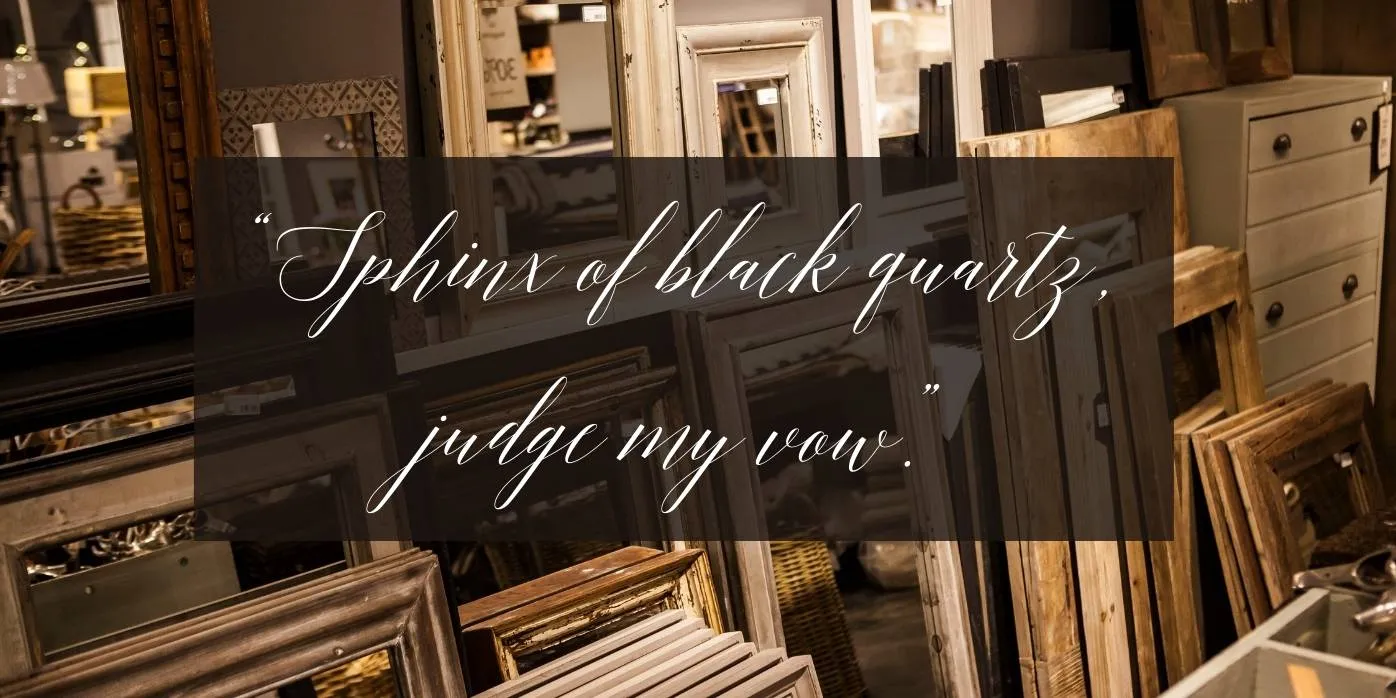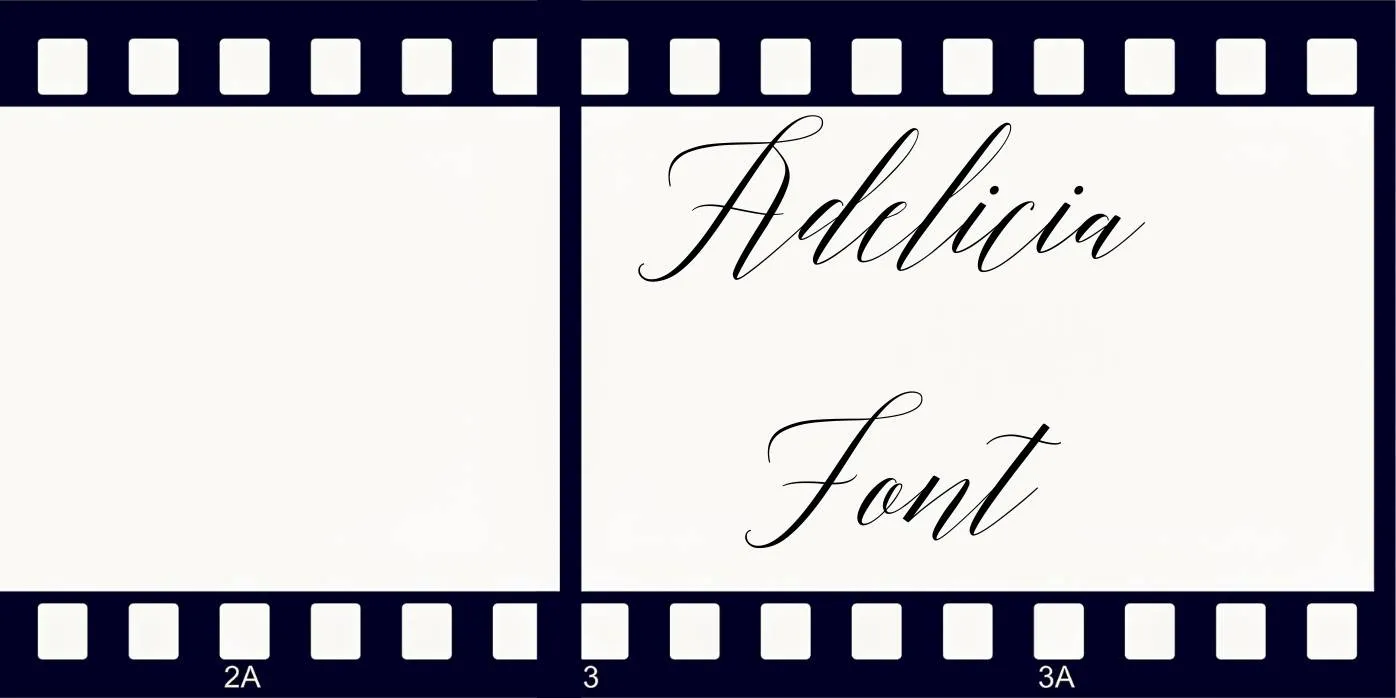
Adelicia Font
Adelicia font Is developed and manufactured by Seniors studios. This typeface belongs to the Calligraphy typeface. This stylish font is Available in six weights. These six weights are light, book, regular, medium, bold and black.
The character set includes uppercase and lowercase letters, numbers, punctuation marks, and symbols. This font is perfect for headlines, logos, and branding projects. This stylish font is a very stylish typeface that will make your designs classic. This typeface is perfect for short and long Paragraphs.